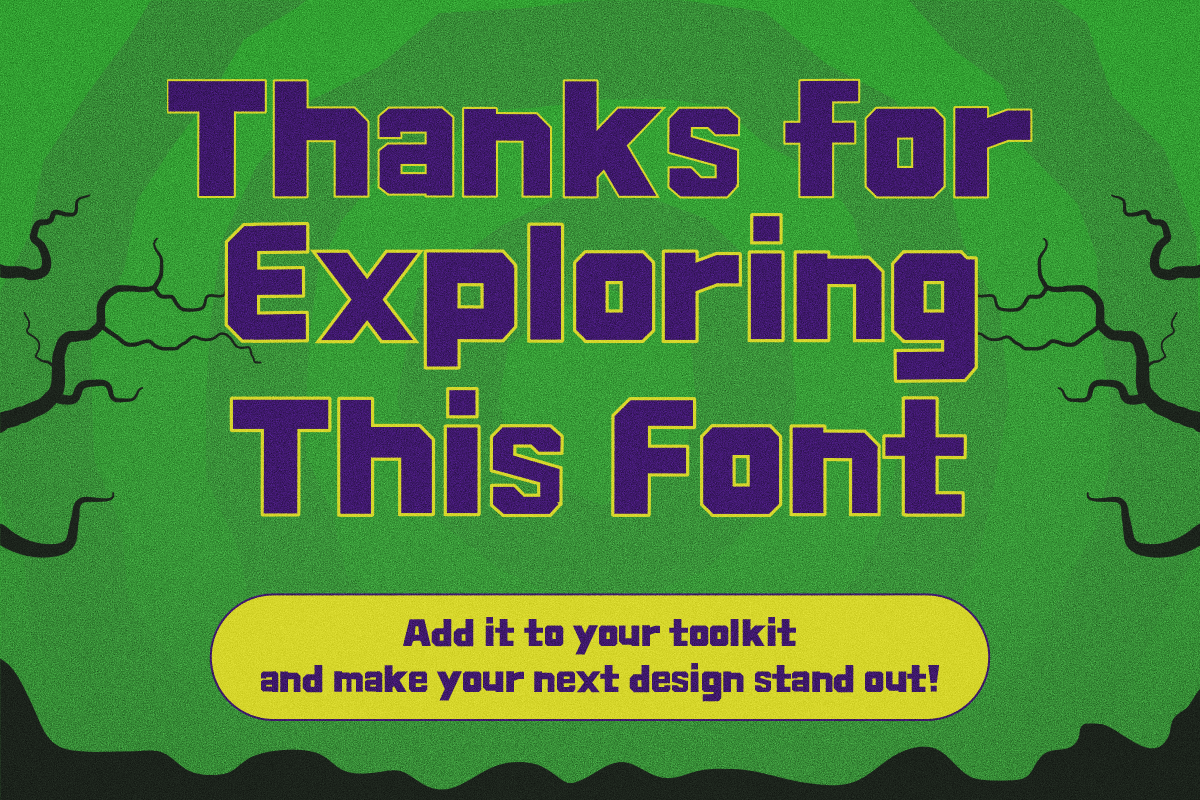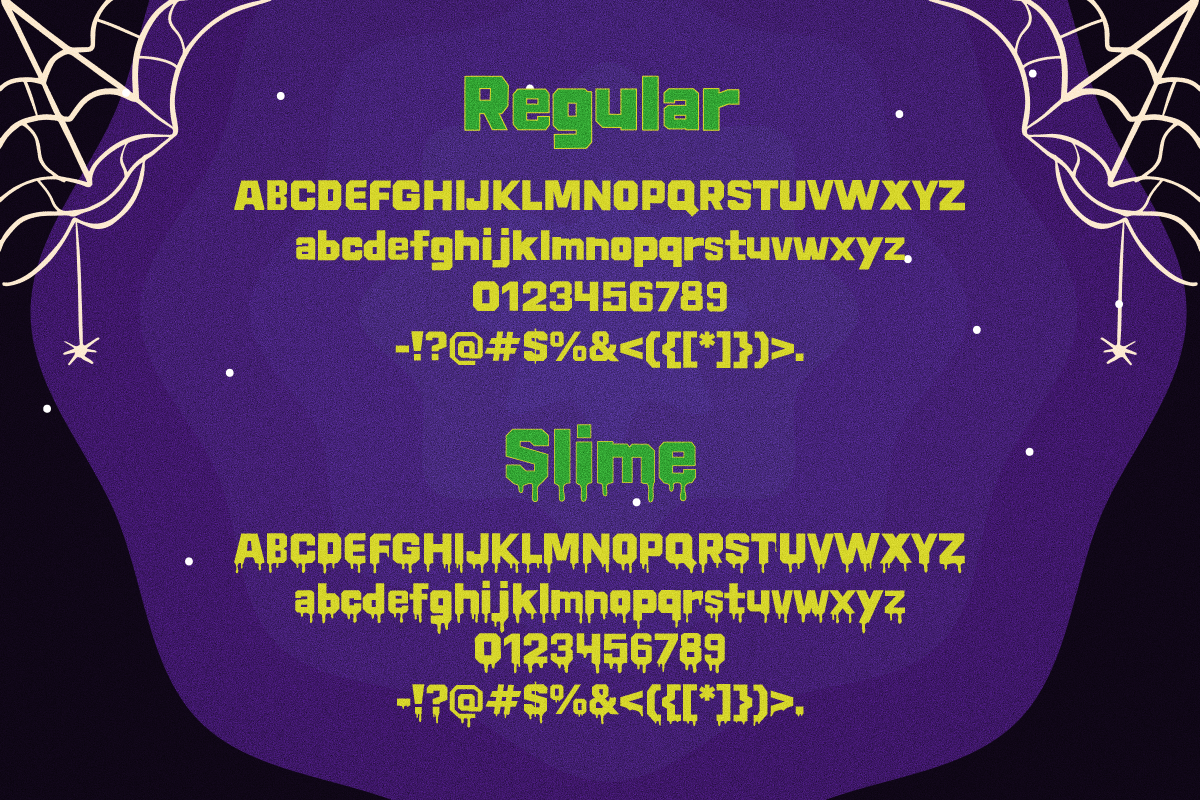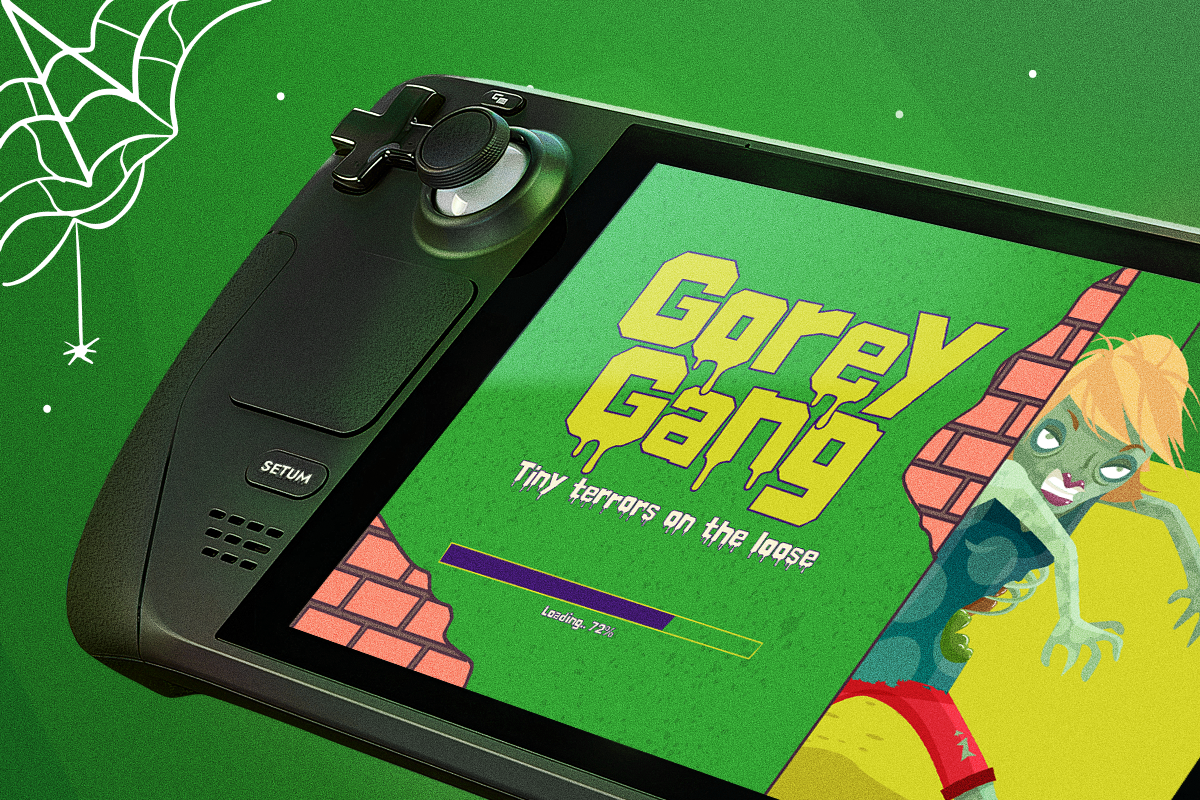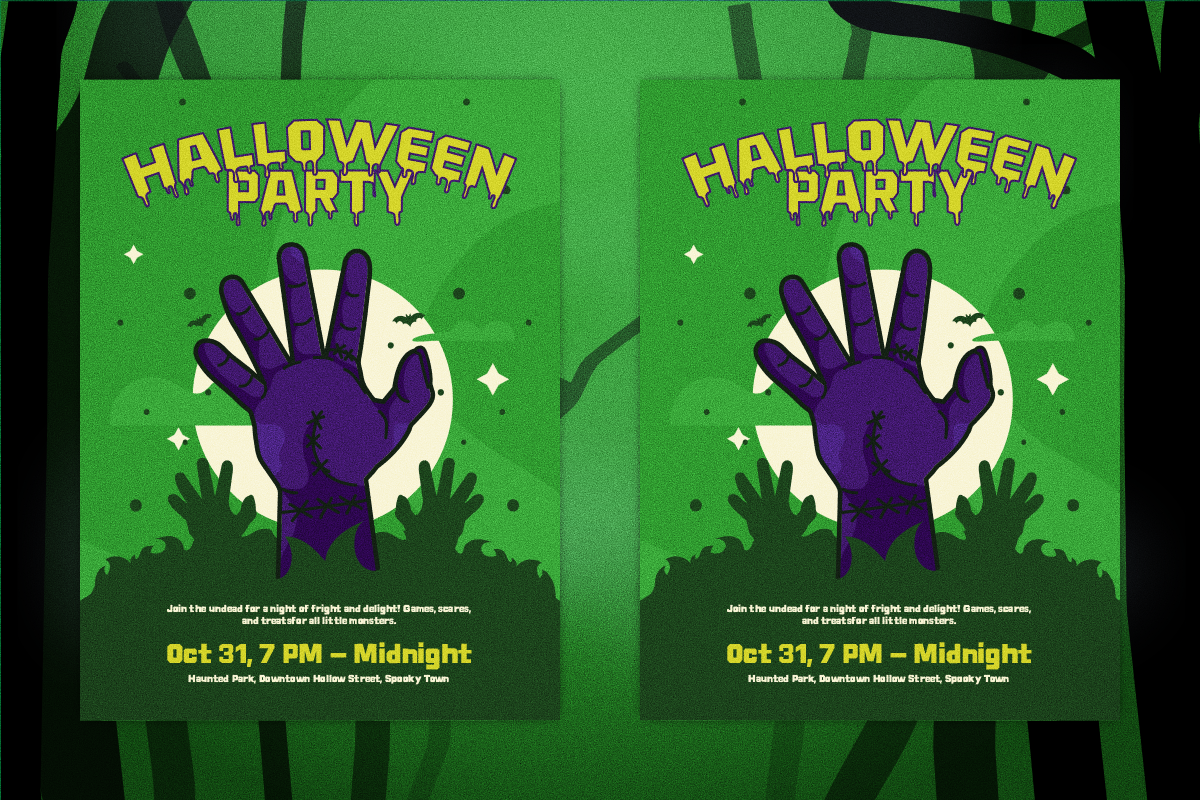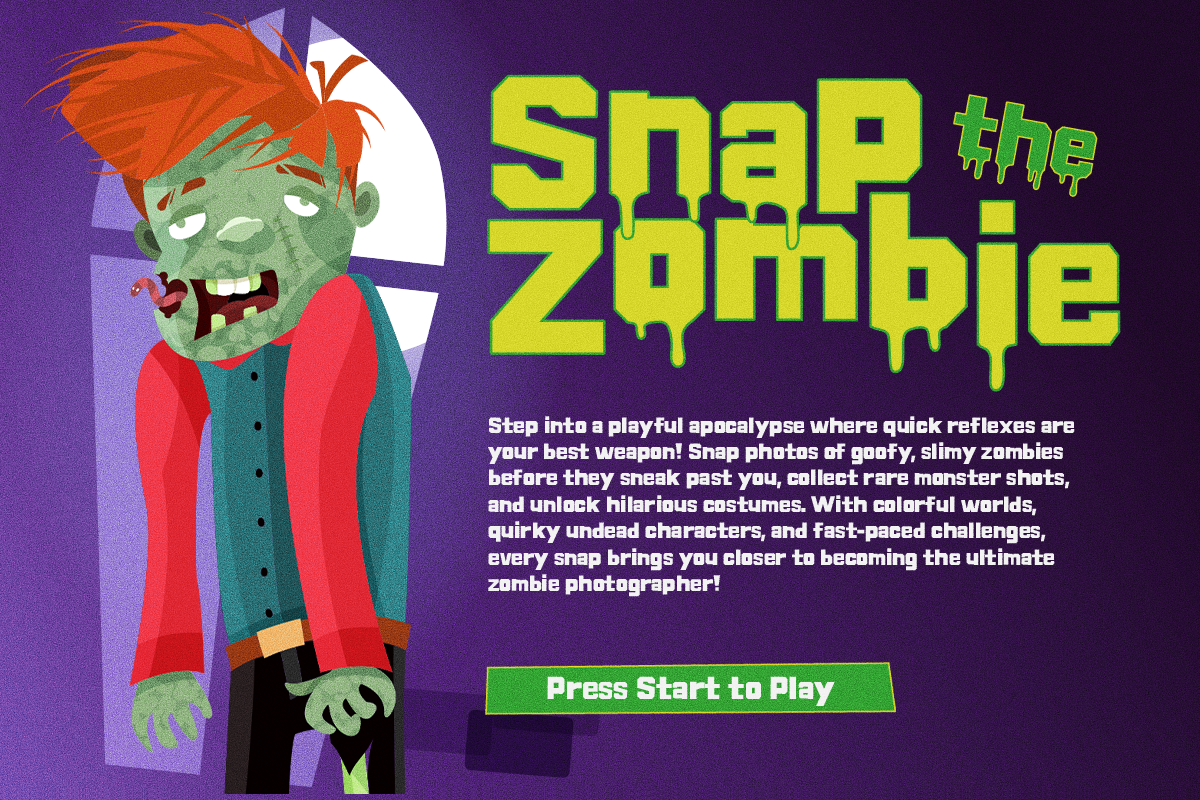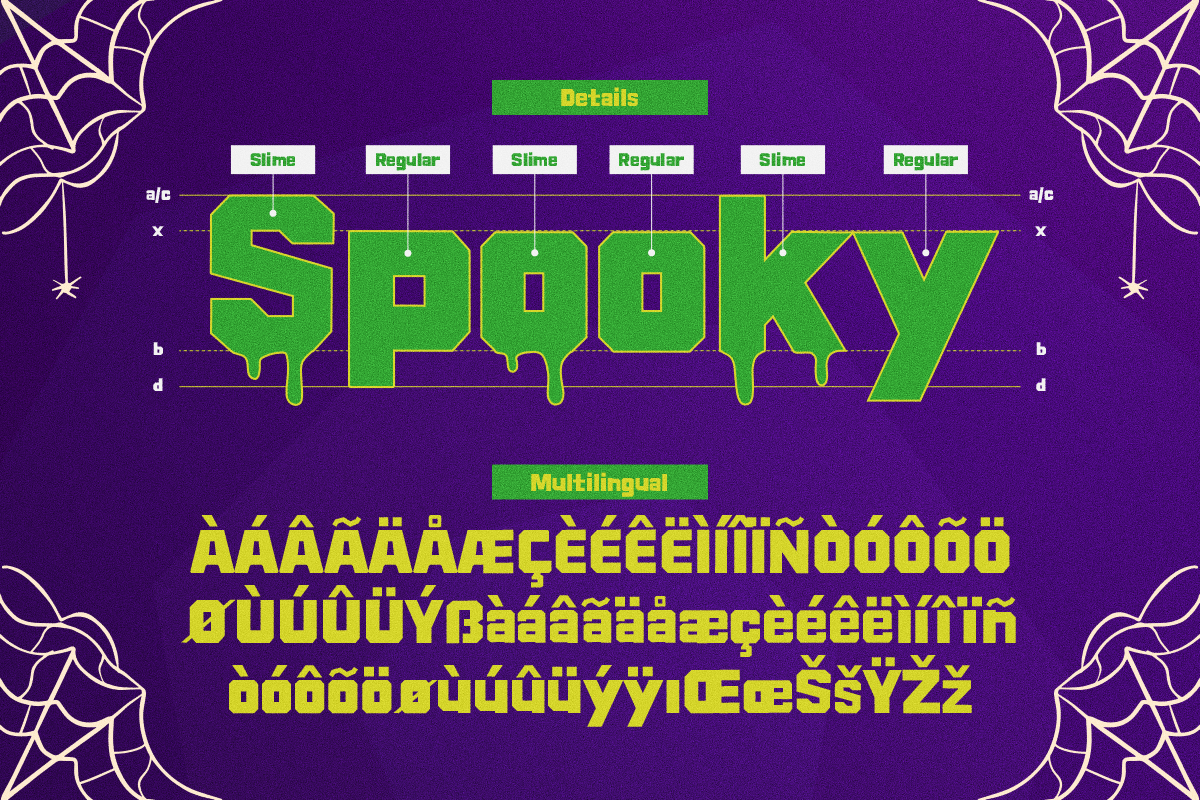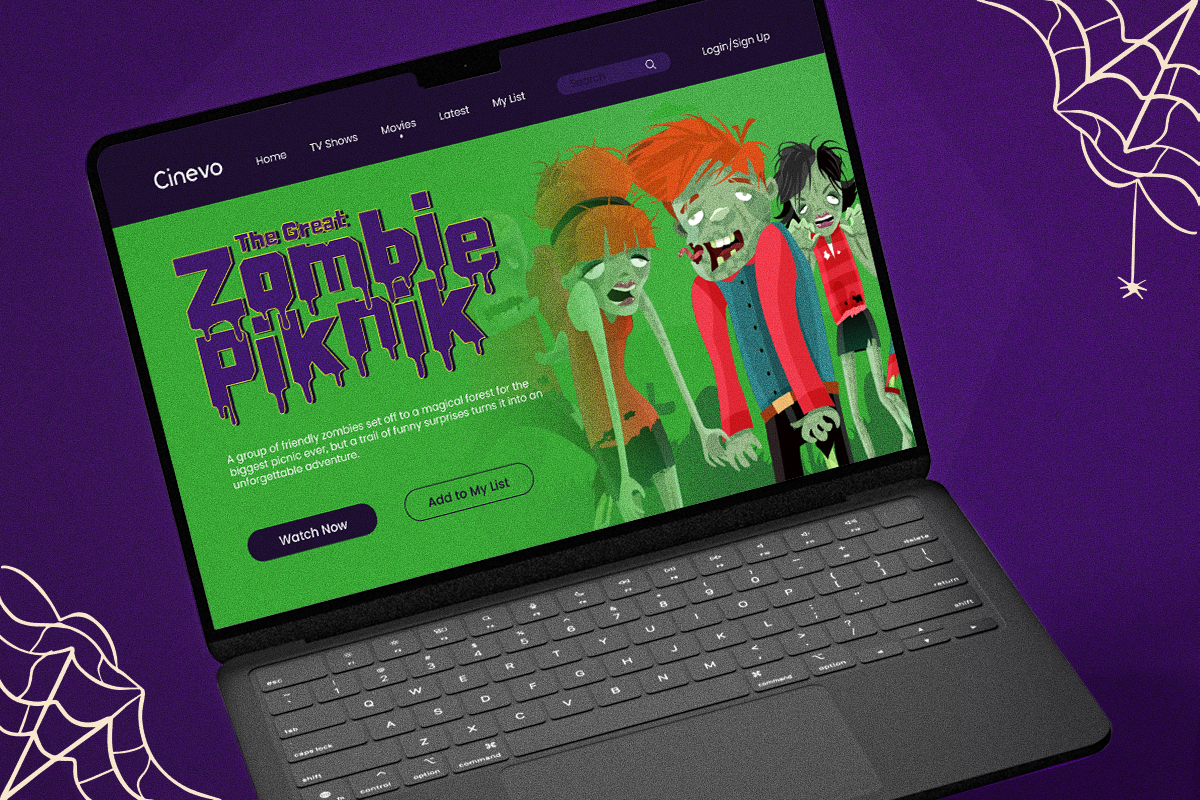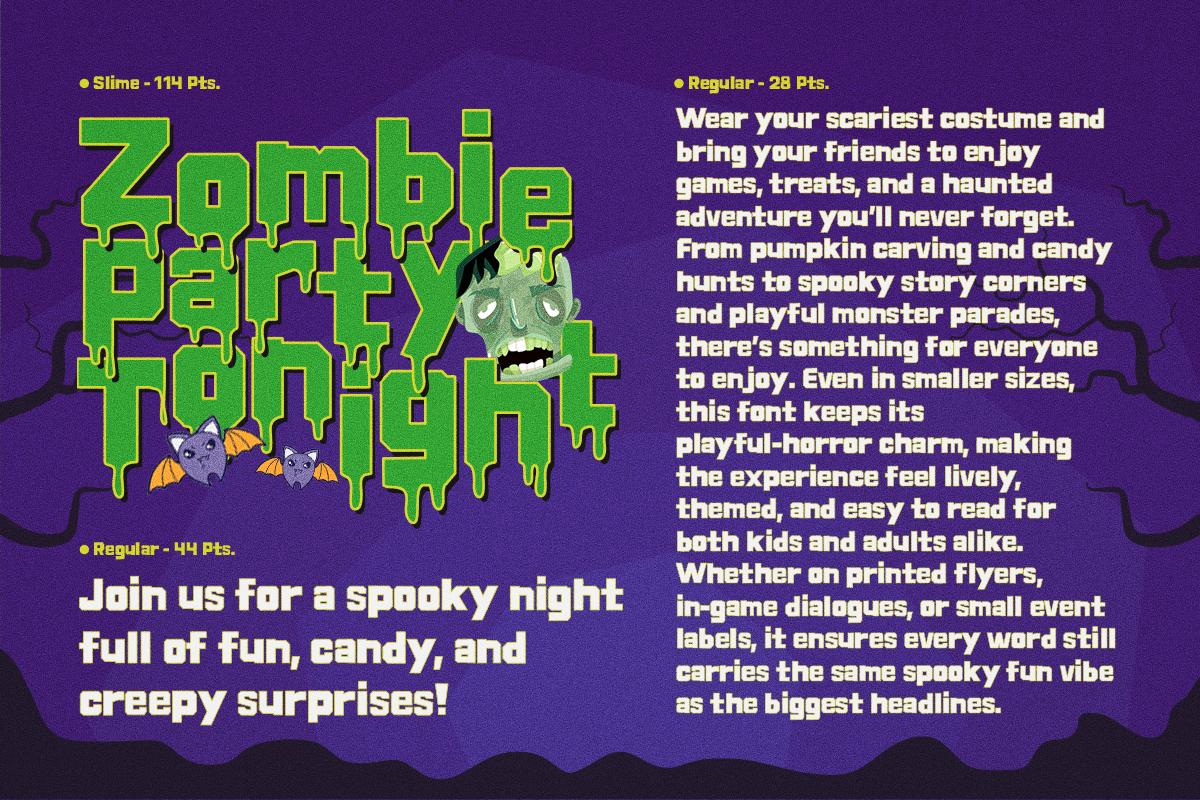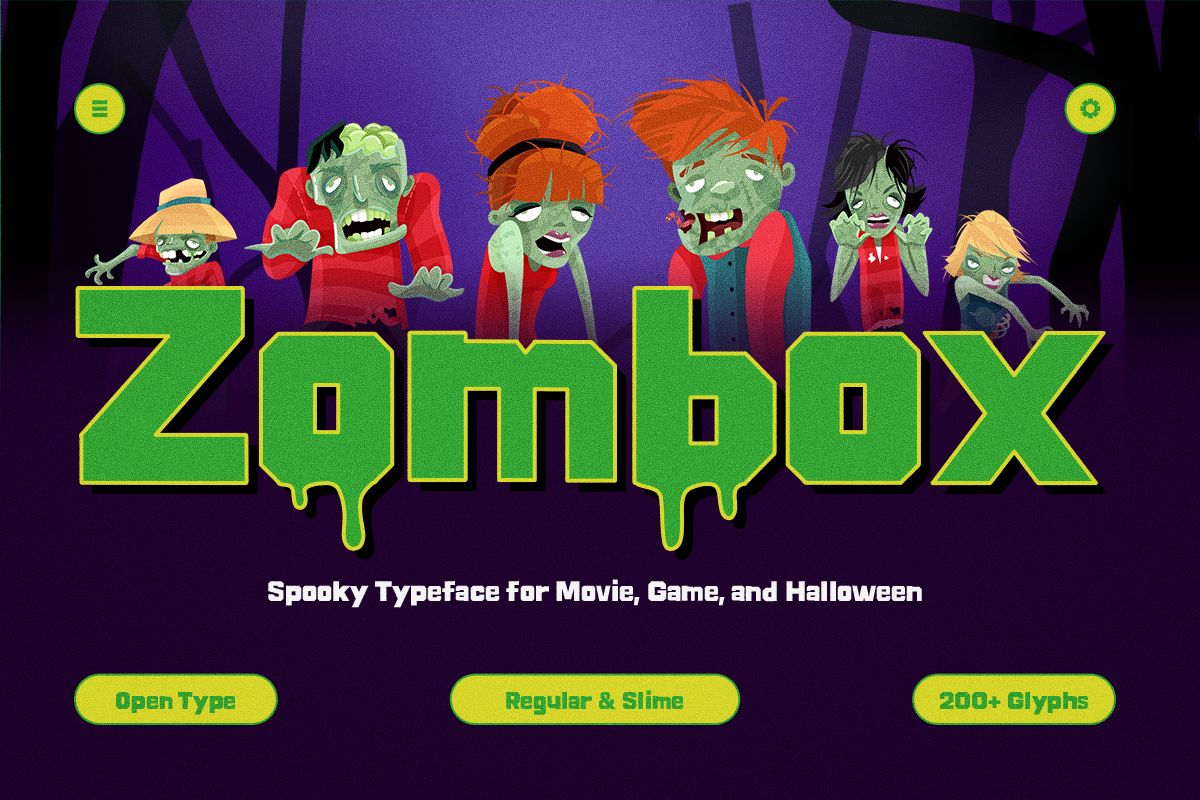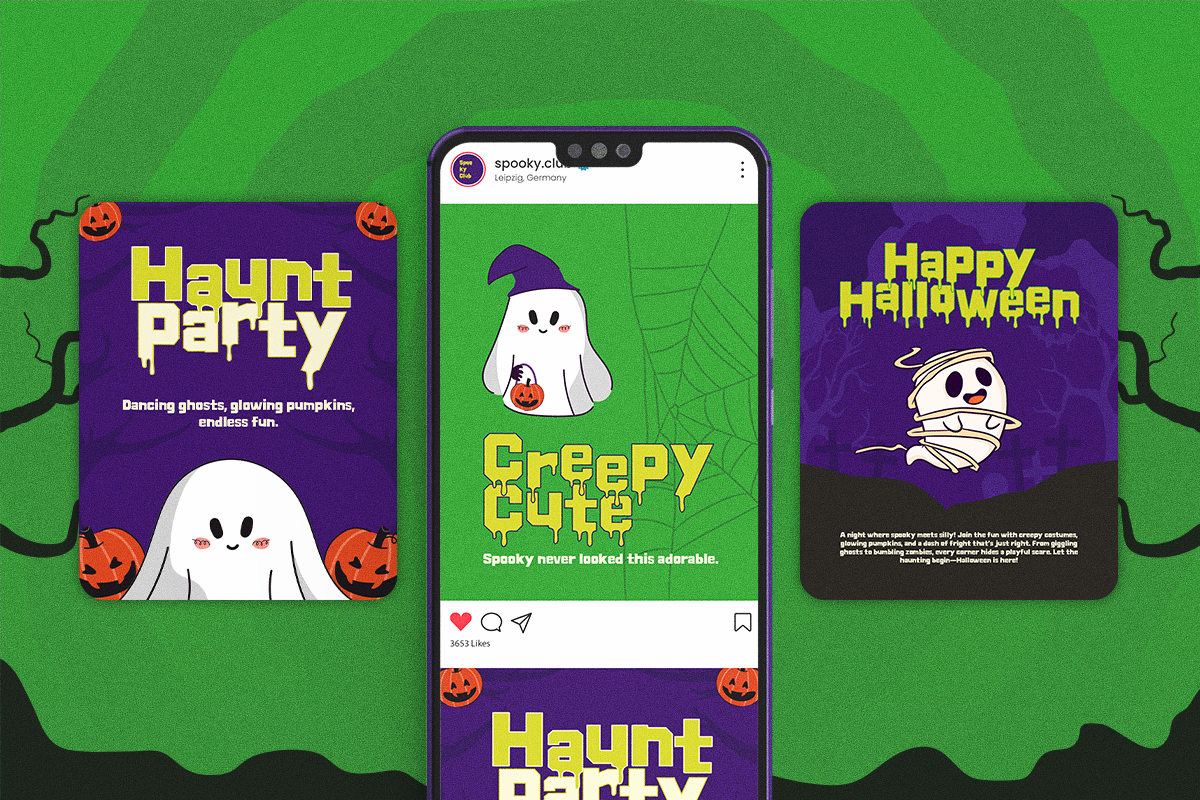
Zombox – Spooky Typeface
Zombox is a spooky display typeface inspired by classic zombie movies, retro horror posters, and creepy Halloween aesthetics. Designed with chunky letterforms and eerie dripping details, Zombox instantly creates a fun yet terrifying atmosphere for headlines, logos, posters, and branding.
Whether you're designing a haunted attraction, horror game, Halloween event, YouTube thumbnail, or monster-themed packaging, Zombox delivers bold visual impact with excellent readability. The font includes two distinctive styles—Regular for clean horror titles and Slime for a gooey, dripping effect that amplifies the creepy vibe.
Perfect for creatives who want a horror typeface that's playful, memorable, and highly versatile.